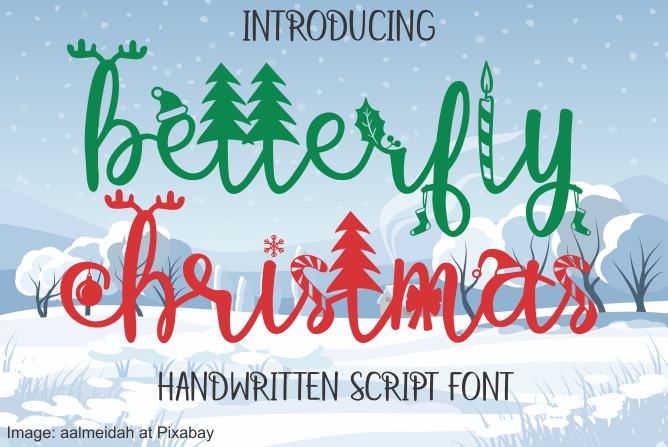
Preview and download Betterfly Christmas Font. Created by Jaime Rangel Castro in Holiday Christmas styles with Free for personal use license.
The betterfly christmas font is a package that contains the betterfly font (https://www.1001freefonts.com/betterfly.font) with its original functionality, plus additional alternatives for lowercase with Christmas decorations. This version font is full, for PERSONAL USE ONLY, but any donation are very appreciated. For donation, please use the donate button. To show the different wings at the beginning or end of a word using lowercase letters, use the following symbols: ( ) < > [ ] { } Example (betterfly) or Terms of use: Free for personal use only. For commercial purpose, please read betterfly christmas-Readme.txt File or you can buy full license here: https://www.creativefabrica.com/designer/jaime-rangel-castro/ref/34049 The complete version include: - Alternates by using Open Type Features or PUA for r s v and w. - Christmas Alternates by using Open Type Features or PUA for a b c d e f g h i j k l m n o p q r s t u v w x y z and �. - Ligatures by using Open Type Features or PUA for aa cc dd ee ff gg ll mm nn oo pp rr ss tt and zz. - 4 butterfly wings for startings and endings by using Open Type Features or PUA. Fonts & Symbols for full version are listed in the Readme File. |